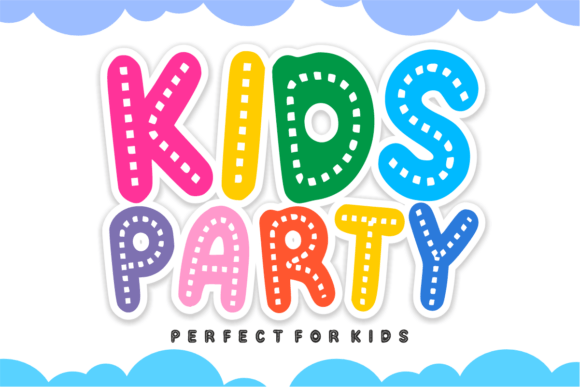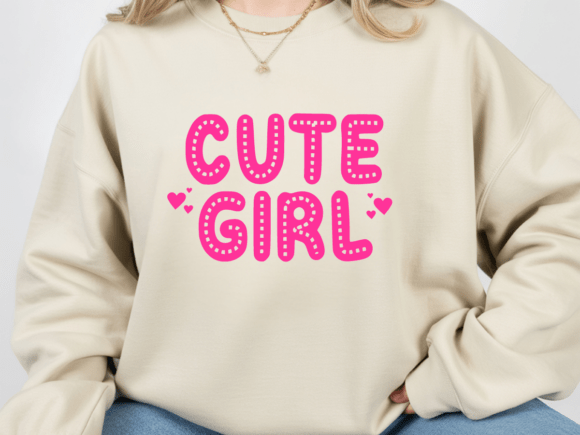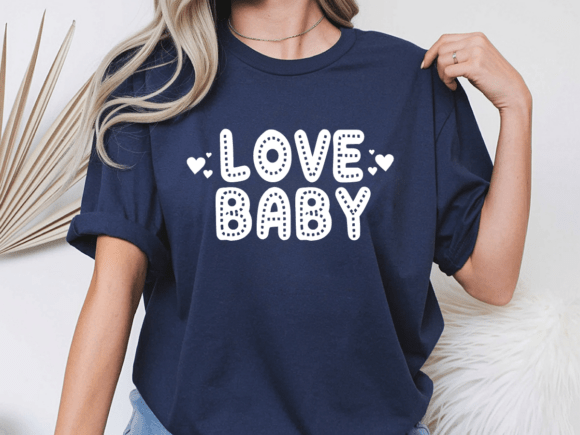
Introduction to Baseball Cartoon Font
Have you ever been stuck in a design rut, struggling to find the perfect font to bring your creative project to life? I know I have! But then, I stumbled upon the Baseball Cartoon Font, and it was love at first sight. This vibrant, stitched-style display font is a game-changer for designers looking to add a burst of energy and fun to their work.
As a design enthusiast, I can attest that the Baseball Cartoon Font is a valuable resource for anyone working on projects aimed at children or sports enthusiasts. Its bold, bubbly style and high-quality design make it incredibly easy to read, while the unique “dashed-line” detail inside every character adds a touch of whimsy and personality. Whether you’re creating a sports-themed brochure, a kid’s book, or a social media graphic, this font is sure to be a “home run”!
Key Features of Baseball Cartoon Font
- Unique and playful design: This font is perfect for creative projects that require a fun and energetic feel.
- High-quality design resource: The Baseball Cartoon Font is a premium quality font that can elevate any design project.
- Perfect for sports-themed designs: The Baseball Cartoon Font is a great choice for sports-themed designs, such as baseball, soccer, or basketball.
Honest Review: Baseball Cartoon Font
I recently had the chance to play around with the Baseball Cartoon Font, and I have to say, I was pleasantly surprised. As a designer, I’m always on the lookout for high-quality fonts that can add a unique touch to my creative projects. This font definitely fits the bill.
- ✨ The font is incredibly versatile, with a wide range of characters and glyphs that can be used to create all sorts of creative effects.
However, I did notice a few limitations:
- ⚠️ The font is a bit on the heavier side, so it may not be suitable for all types of designs.
- ⚠️ There are no bold or italic versions of the font available, which may limit its use in certain situations.
Overall, I’m really impressed with the Baseball Cartoon Font. It’s a great addition to any designer’s toolkit, and I would definitely recommend it to anyone looking for a unique and high-quality font for their next creative project.
To maximize the effectiveness of the Baseball Cartoon Font, use it in conjunction with other design elements that complement its playful and energetic style. Experiment with different font sizes, colors, and layouts to create visually appealing designs.
The Baseball Cartoon Font is ideal for sports-themed designs, such as baseball and softball teams, as well as creative projects like cartoons and comics. Its high-quality design and transparent background make it a versatile resource for a variety of applications.